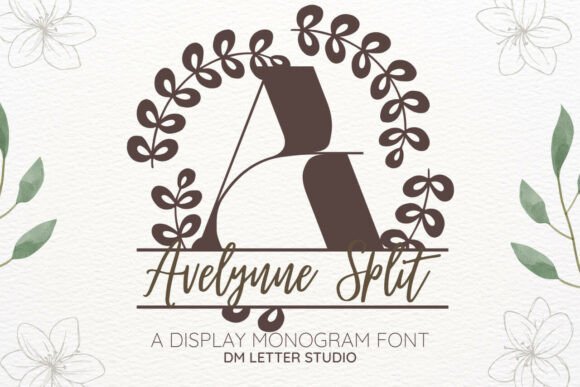
A Custom Touch for Your Creations: Unleash the Potential of Avelynne Split Monogram Font
Have you ever received a beautifully crafted gift or seen a thoughtful keepsake that made you feel seen and remembered? For many of us, it’s the personal touch that makes a design truly special. As creatives, we’re always on the lookout for ways to add that extra something to our projects, and today we’re excited to introduce you to Avelynne Split Monogram Font – a game-changing tool that turns initials into stunning nameplates in seconds.
Avelynne Split Monogram Font is more than just a font – it’s a versatile design solution that’s perfect for wedding gifts, family signs, door hangers, and more. With its elegant letterforms and center split, you can easily add names, dates, or short words to create polished and refined results. Whether you’re a seasoned designer or a DIY enthusiast, this font is a valuable addition to your toolkit, offering a wide range of creative possibilities and premium results with minimal effort.
Avelynne Split Monogram Font Key Features
- Unique Characteristic: Avelynne Split Monogram Font features a unique split monogram design, ideal for creating custom logos and branding elements.
Avelynne Split Monogram Font Review
Overall, I think the Avelynne Split Monogram Font is a nice addition to any designer’s toolkit. Here are some things that work well: ✨
- It’s extremely versatile – perfect for wedding invitations, birthday party decorations, and other special occasion designs.
- The split monogram design is visually appealing and can add a touch of elegance to any project.
- The font is highly customizable, allowing you to adjust the colors, spacing, and layout to fit your design needs.
- The font may not be suitable for all types of projects, such as formal business documents or complex data visualizations.
- The font can be a bit overwhelming if used in large quantities or with too many colors.
- The font does not include a full character set, which may limit its use in certain contexts.
Overall, I think the Avelynne Split Monogram Font is a solid choice for designers looking to add some flair to their projects. While it may not be suitable for every project, it’s a great option for special occasions and events. With some careful use and customization, it can add a touch of sophistication and elegance to any design.
Tips for Getting the Most Out of the Avelynne Split Monogram Font
Experiment with different font sizes and colors to create a unique and eye-catching design. Use the font in combination with other design elements, such as graphics and images, to create a visually appealing design.
The Avelynne Split Monogram Font is ideal for creating custom monograms, logos, and branding materials. It’s also great for use in wedding invitations, birthday cards, and other special occasion designs.